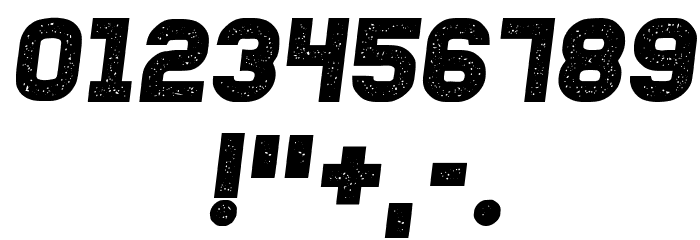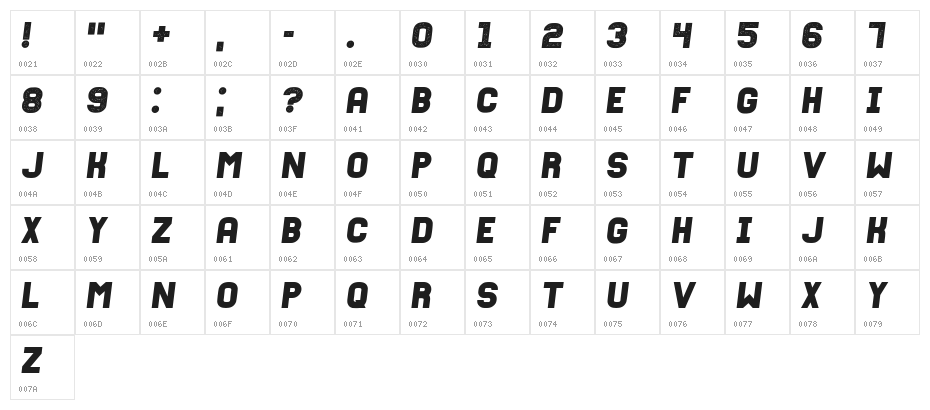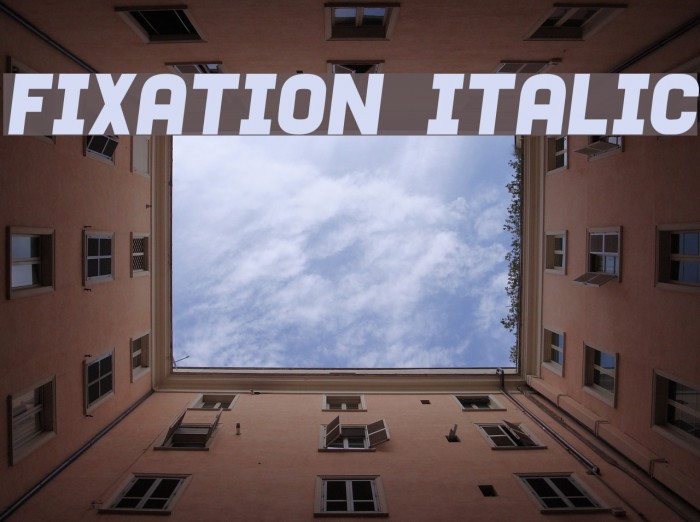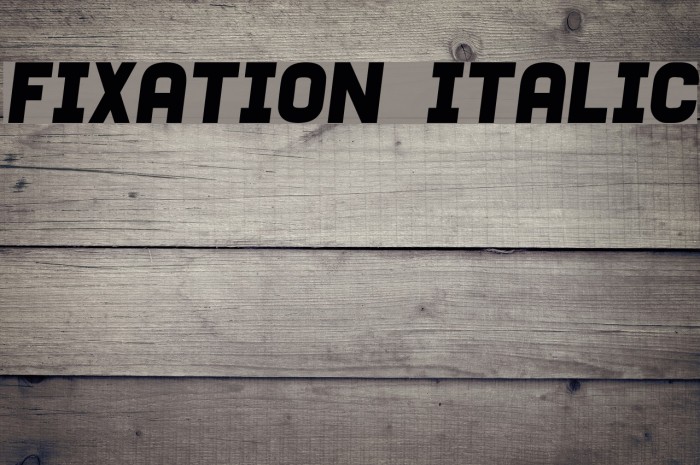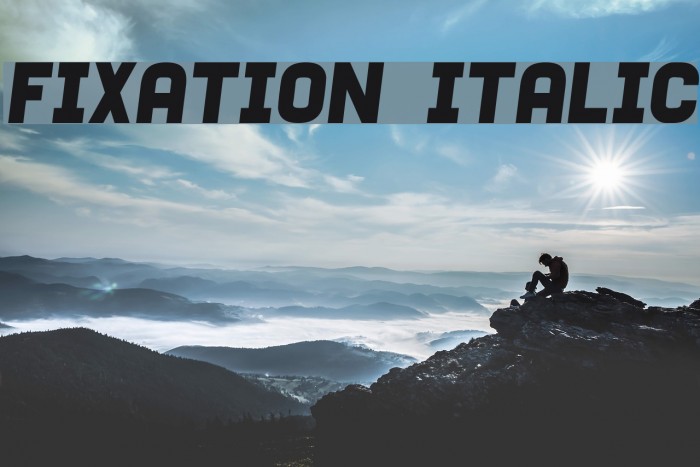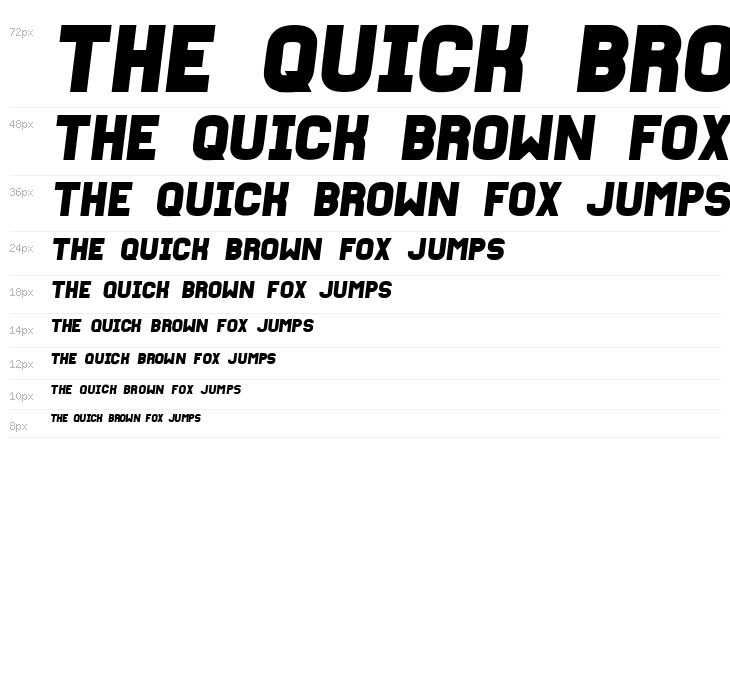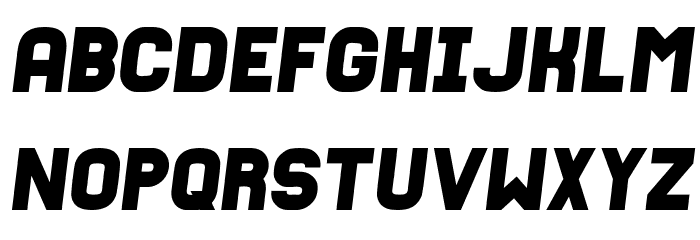
Fixation Italic Font
Fixation Italic Description
This font features a bold, italicized style with a strong presence. The characters are slightly slanted, giving a sense of movement and dynamism. The uppercase letters are uniform in height, while the numbers and special characters maintain a consistent weight and style. The font has a distressed texture, adding a rugged, vintage feel. The bold strokes and italic slant make it ideal for attention-grabbing headlines or impactful logos. The character spacing is normal, ensuring readability while maintaining its bold aesthetic.
| Proposed Projects | Ideal for branding, posters, and headlines that require a bold, dynamic look. |